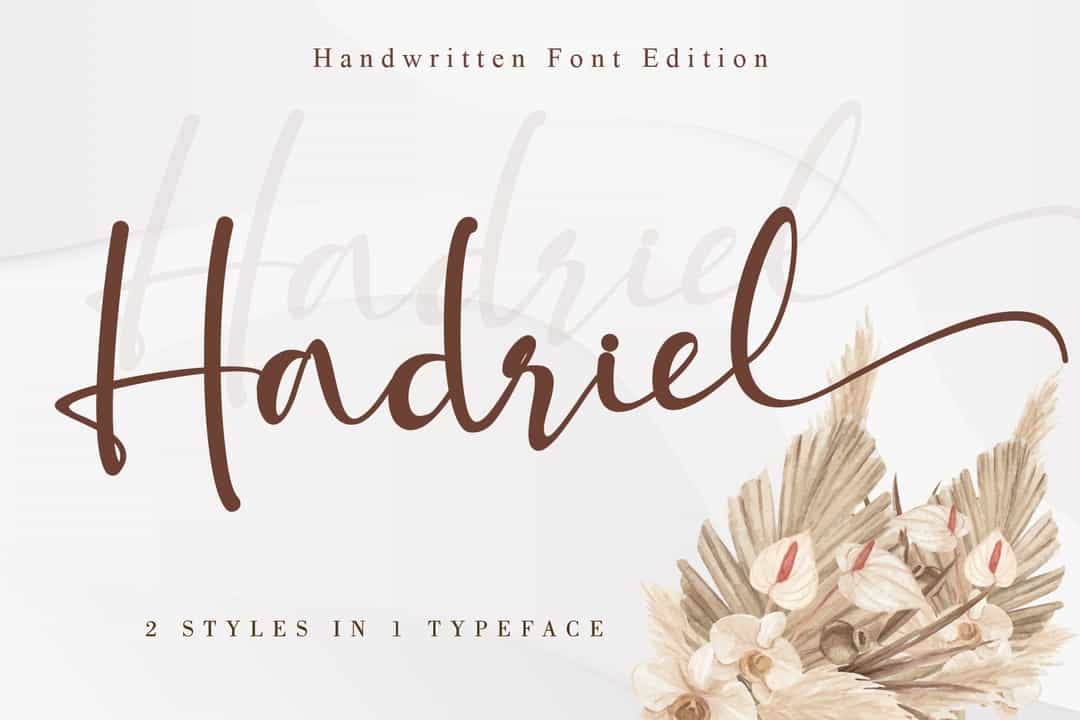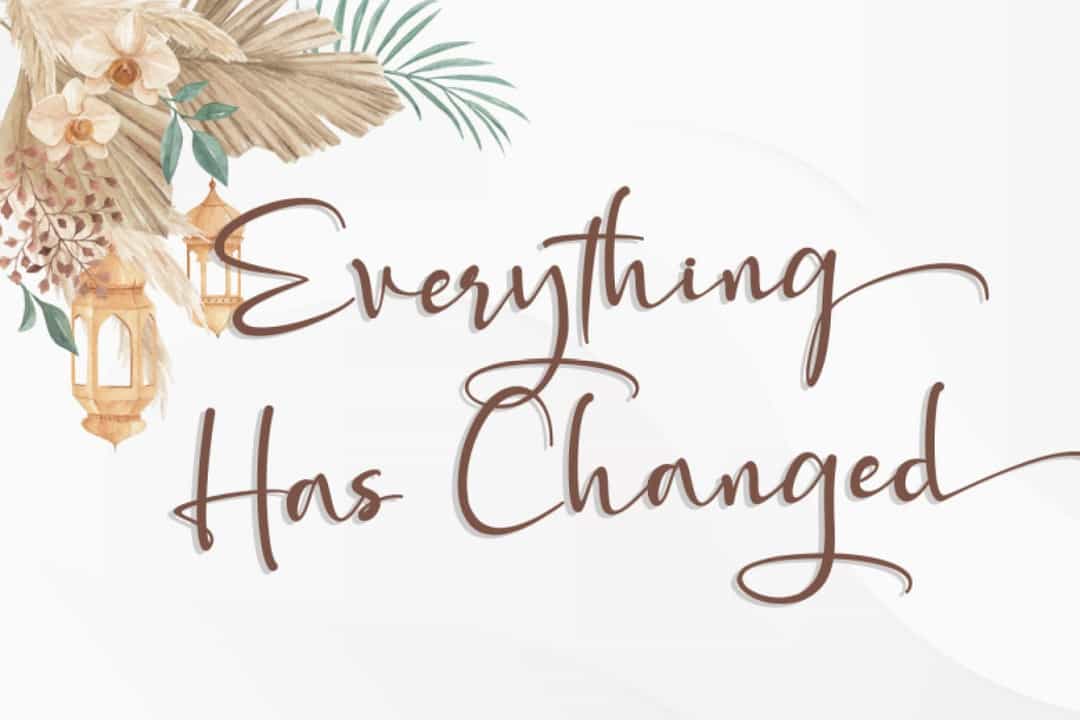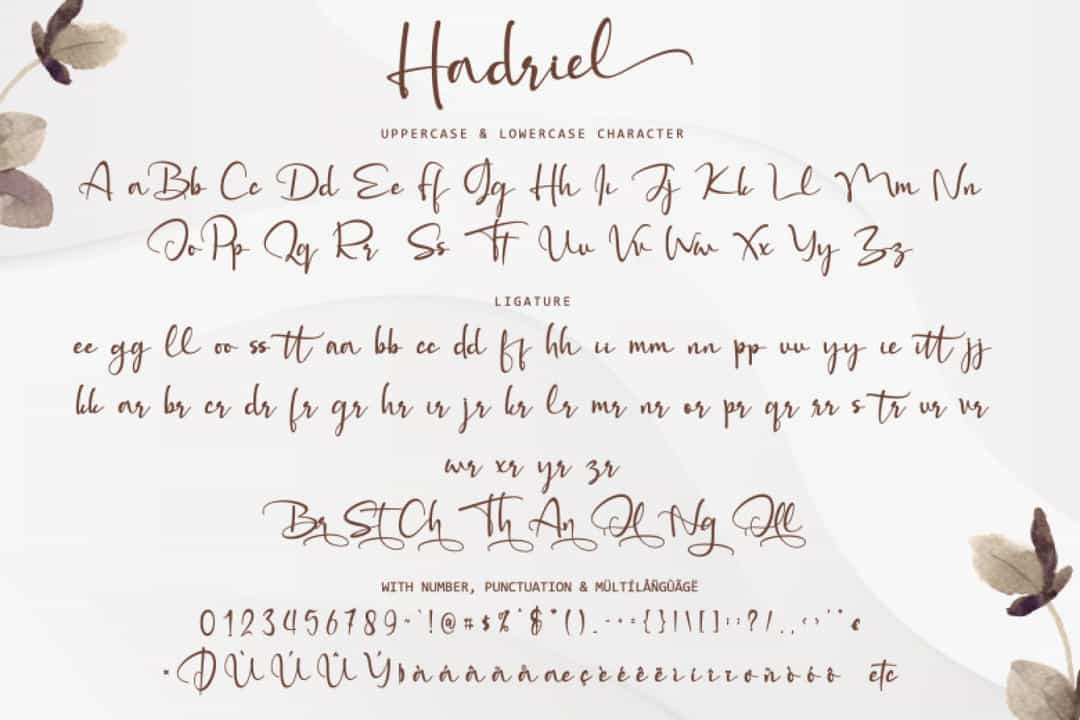
Hadriel Font – handwriting script style with sharp and sweet accents The Hadriel Font is a handwriting script typeface with stylish simplicity incorporating the acute and sweet design can be used with lowercase and some of the lowercase alternative letters; numbers and punctuations; ligature for tt and multiple languages.